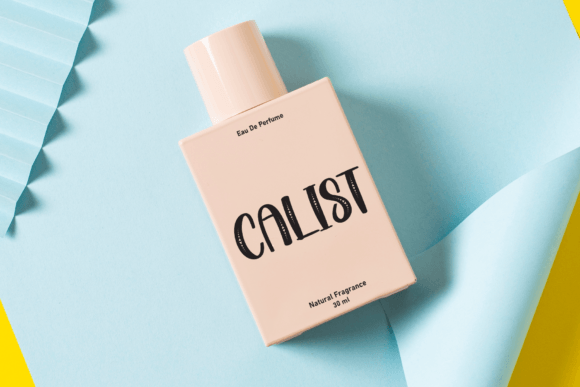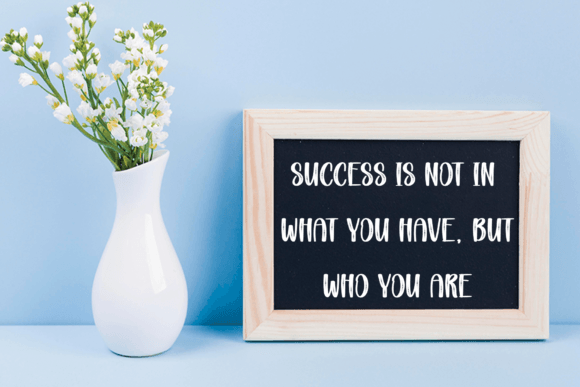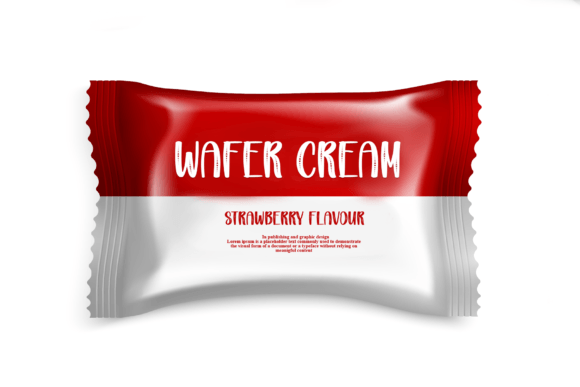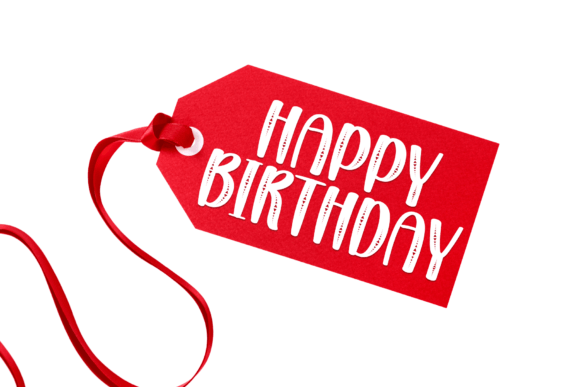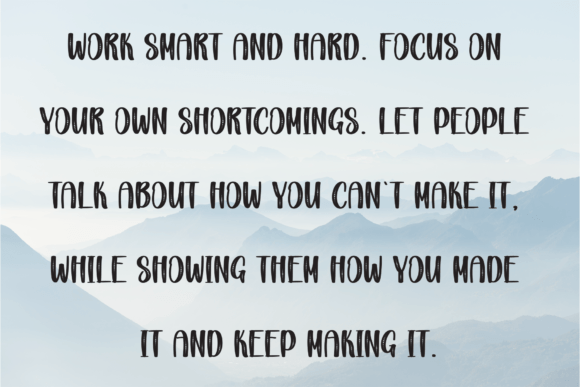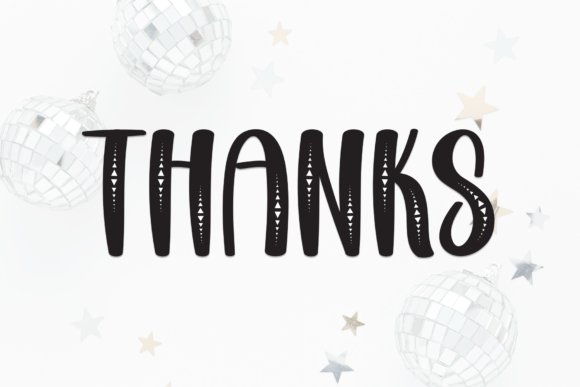
Diamond Christmas Font: A Timeless Handwritten Font for Your Holiday Designs
Are you looking for a font that will add a touch of elegance and sophistication to your holiday designs? Look no further than the Diamond Christmas font! This lovely and timeless handwritten font is perfect for creating eye-catching logos, branding, and quotes that will make your design come alive.
What Makes Diamond Christmas Font So Special?
Diamond Christmas font is a unique and beautiful handwritten font that features a distinctive touch. Every letter has a special charm that sets it apart from other fonts, making it perfect for designers and crafters who want to add a personal touch to their work. Whether you’re creating holiday cards, gift tags, or social media graphics, Diamond Christmas font is sure to impress.
Diamond Christmas font is an excellent choice for creating logos, branding, and quotes that will stand out from the crowd. Its elegant and sophisticated design makes it perfect for businesses and individuals who want to create a professional and cohesive brand image. With Diamond Christmas font, you can create stunning logos, business cards, and marketing materials that will leave a lasting impression on your customers.
Unique Features of Diamond Christmas Font
- Handwritten design: Diamond Christmas font features a beautiful handwritten design that adds a personal touch to your work.
- Unique lettering: Every letter has a unique and beautiful touch that sets it apart from other fonts.
- Elegant and sophisticated: Diamond Christmas font is perfect for creating professional and cohesive brand images.
- Perfect for holiday designs: Diamond Christmas font is specifically designed for holiday designs, making it perfect for creating stunning holiday cards, gift tags, and social media graphics.
Why Designers and Crafters Love Diamond Christmas Font
Diamond Christmas font has become a favorite among designers and crafters due to its versatility and elegance. Here are just a few reasons why:
- High-quality design: Diamond Christmas font features a high-quality design that will make your work stand out from the crowd.
Tips for Using Diamond Christmas Font
Here are a few tips for using Diamond Christmas font in your designs:
- Use it for headlines: Diamond Christmas font is perfect for headlines and titles, making it ideal for creating stunning holiday cards and gift tags.
- Pair it with other fonts: Diamond Christmas font pairs well with other fonts, making it perfect for creating unique and eye-catching designs.
- Experiment with colors: Diamond Christmas font looks great in a variety of colors, so don’t be afraid to experiment and find the perfect color for your design.
Diamond Christmas font is a timeless and elegant handwritten font that is perfect for creating stunning holiday designs. Its unique and beautiful lettering makes it perfect for logos, branding, and quotes, while its ease of use and high-quality design make it a favorite among designers and crafters. Whether you’re creating holiday cards, gift tags, or social media graphics, Diamond Christmas font is sure to impress.